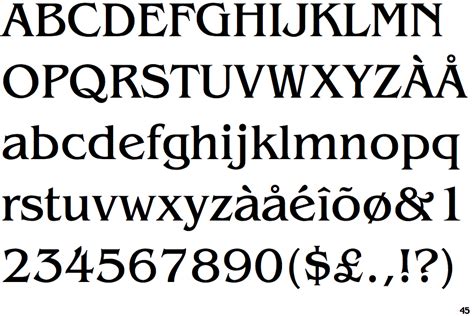
Benguiat Itc Font. It is a decorative font style that has a condensed and attractive. Web download itcbenguiat for free, view sample text, rating and more on fontsgeek.com
Web itc benguiat font is a member of the serif font family. Web download itcbenguiat for free, view sample text, rating and more on fontsgeek.com It is a decorative font style that has a condensed and attractive.
It is a decorative font style that has a condensed and attractive. Web itc benguiat font is a member of the serif font family. It is a decorative font style that has a condensed and attractive. Web download itcbenguiat for free, view sample text, rating and more on fontsgeek.com